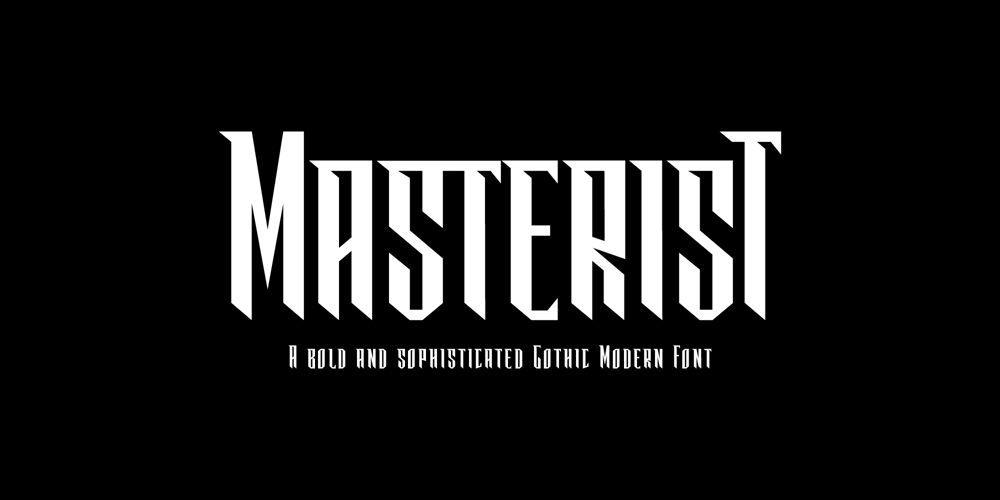
Masterist
Masterist font
Masterist Font Family was designed by Yohanes Oktavianus Aang and published by Yohanes Oktav. Masterist contains 1 styles and family package options. Introducing Masterist, a bold and sophisticated Gothic Modern font. Perfect for striking logotypes and monograms, its sharp lines and intricate details exude elegance and refinement, making a powerful statement for Masculine brands.